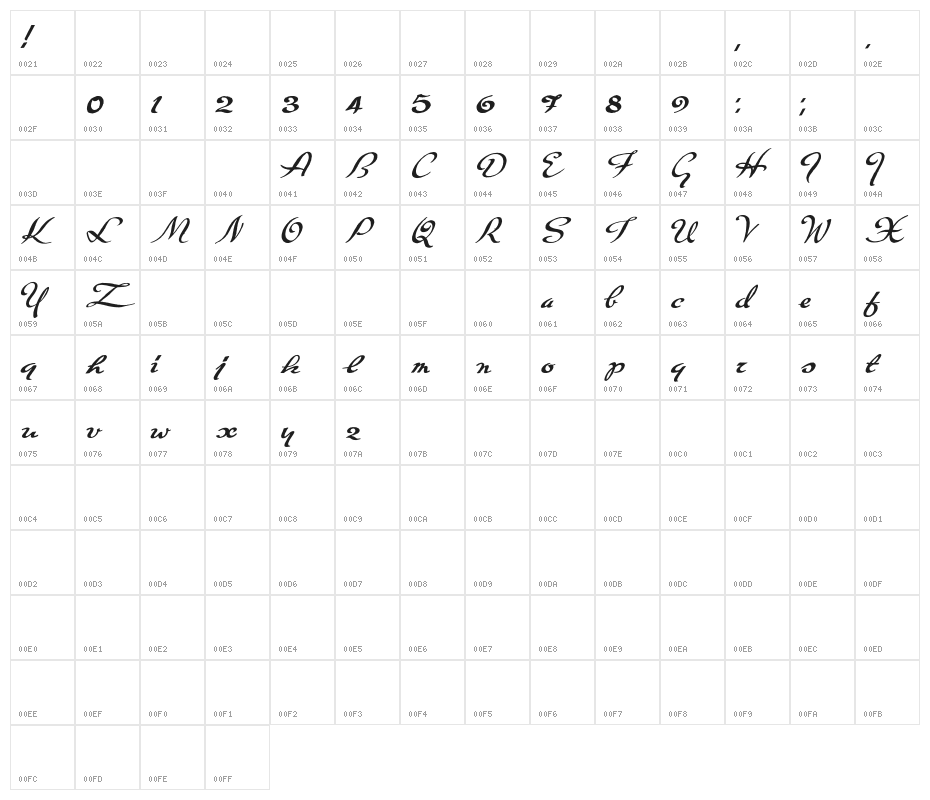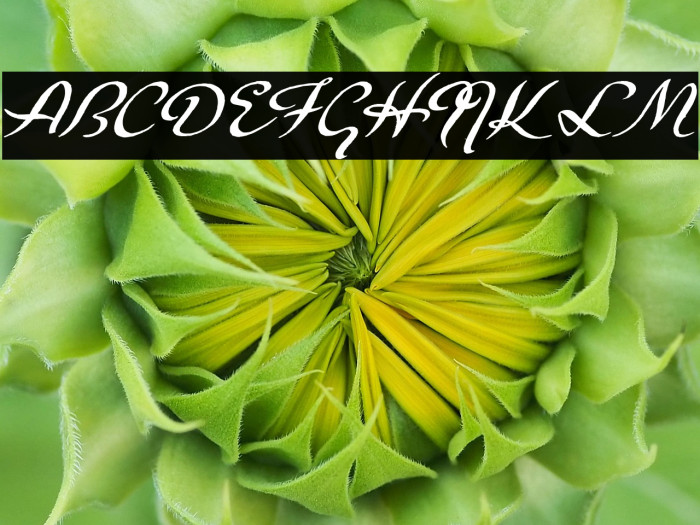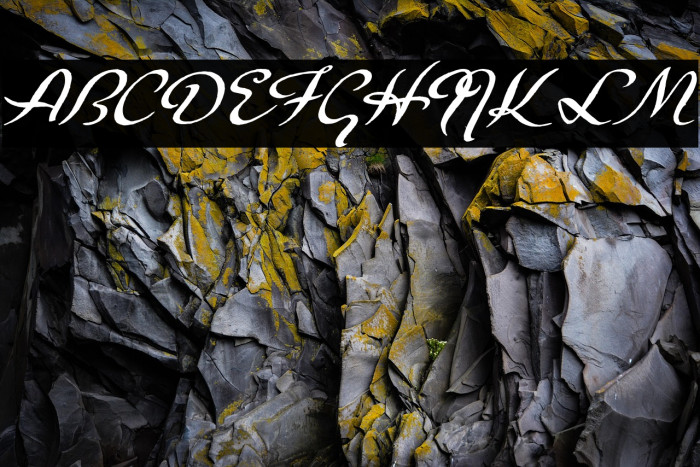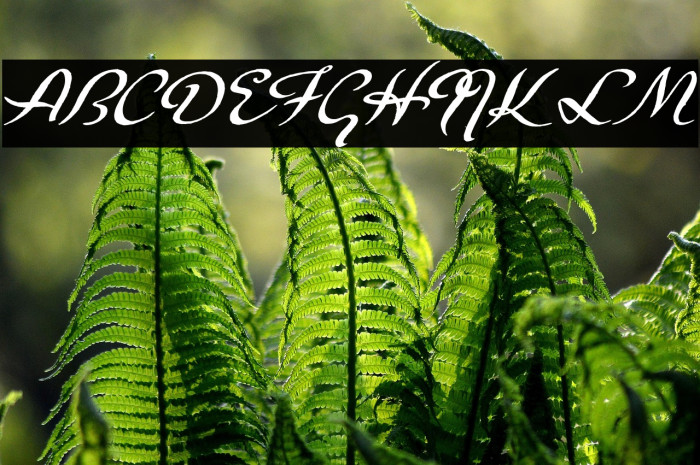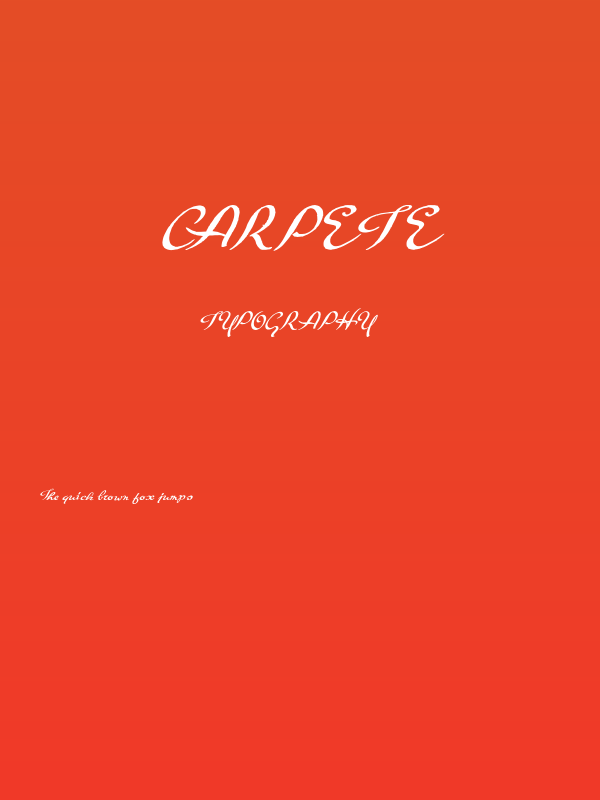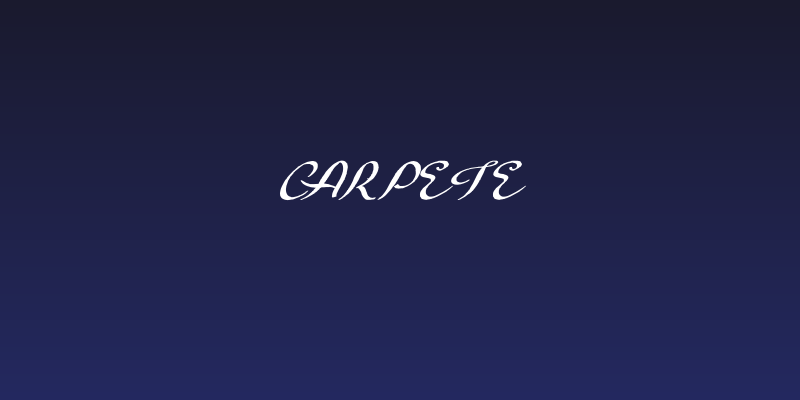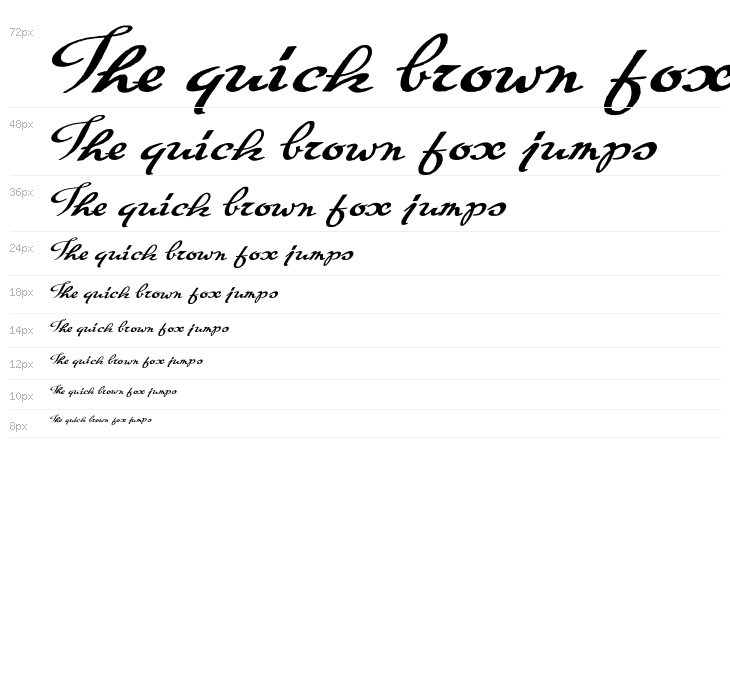
Carpete Font
Carpete Description
This font exudes a classic and elegant script style, characterized by its flowing, cursive letterforms. The uppercase letters are ornate and slightly slanted, with intricate loops and flourishes that give a sense of sophistication and grace. The lowercase letters maintain a consistent style, with smooth connections between strokes, enhancing readability while retaining an artistic flair. The numerals are bold and slightly italicized, complementing the overall aesthetic. Special characters are designed with the same attention to detail, ensuring a cohesive look across all glyphs.
| Proposed Projects | Ideal for wedding invitations, elegant branding, greeting cards, and luxury product packaging. |